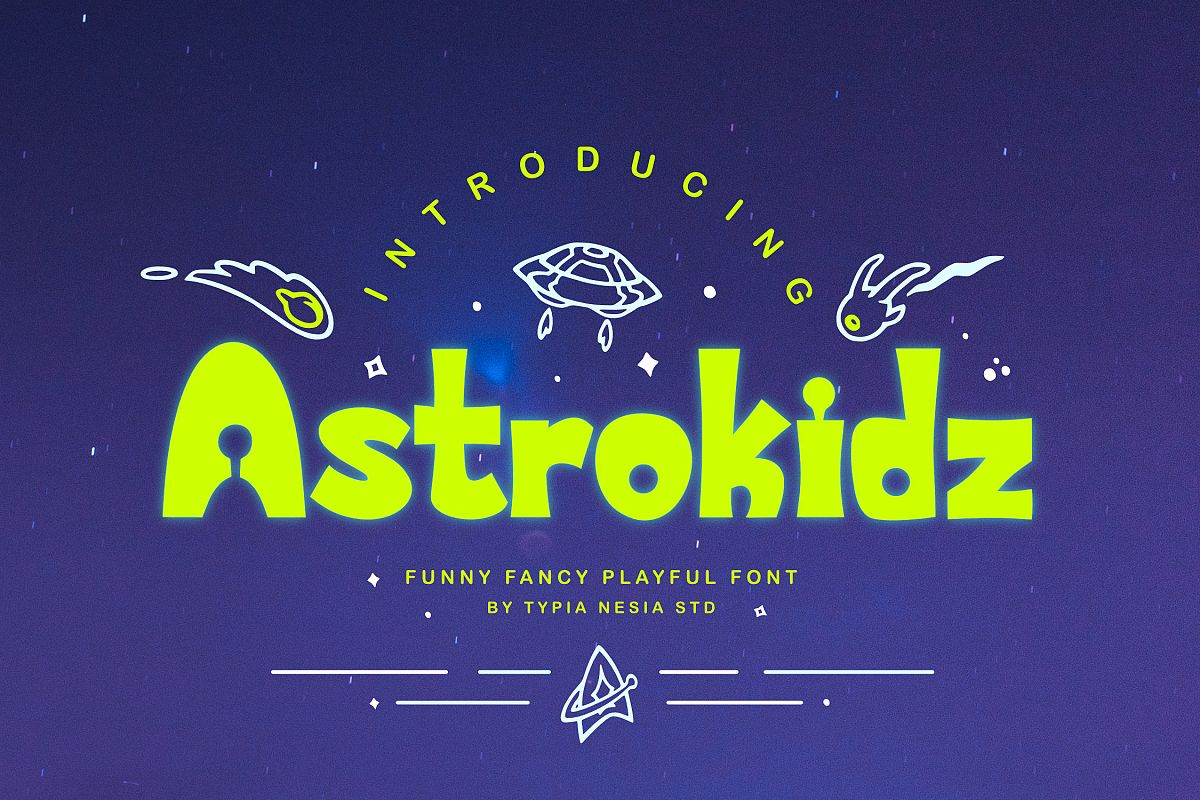
Astrokidz is a Playful, Funny and Fancy font.
It suitable for branding, crafting quote, t-shirt, poster, packaging, book cover, display design, cards, invitation and any cute and funny typeface needs and more.